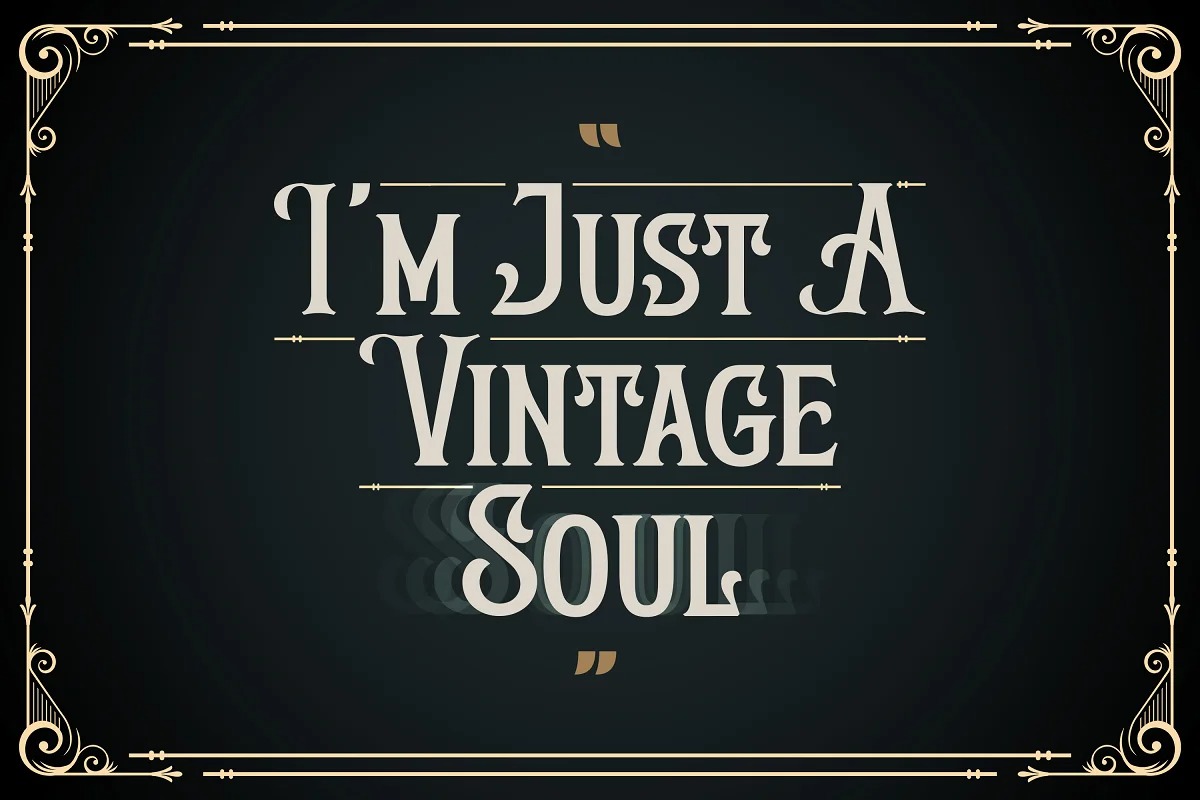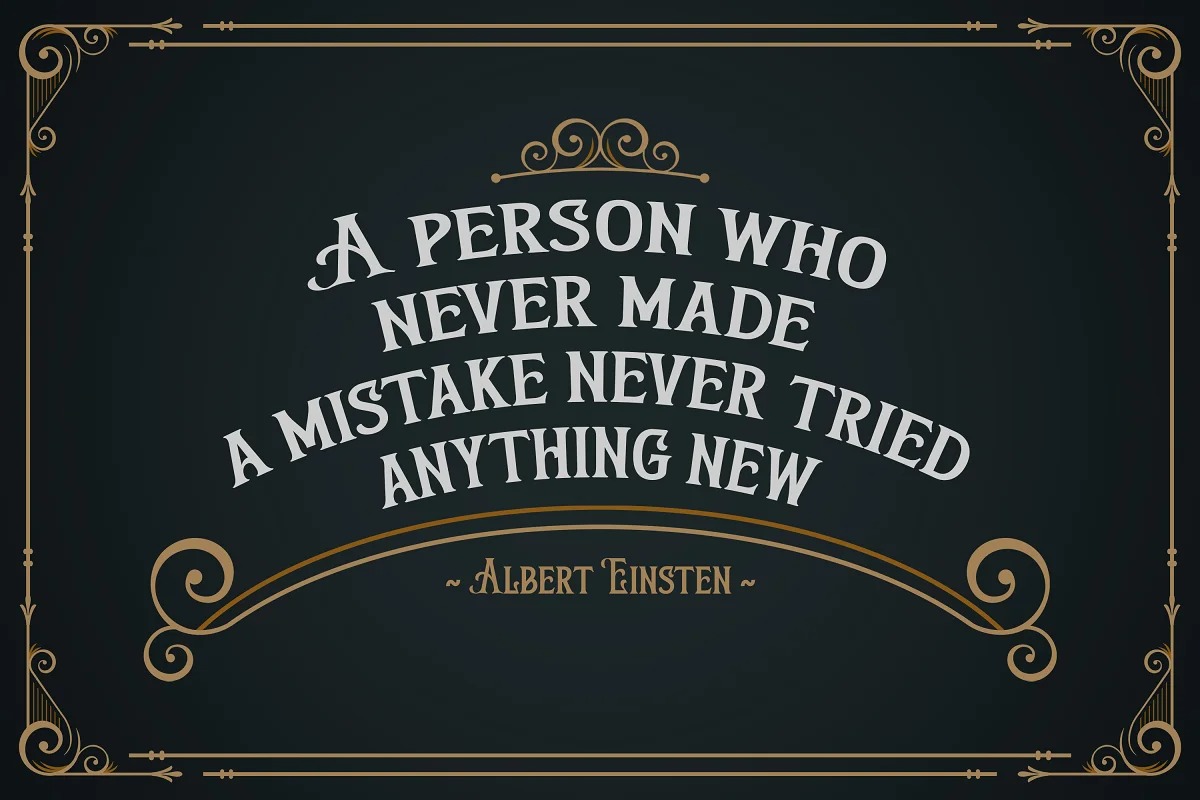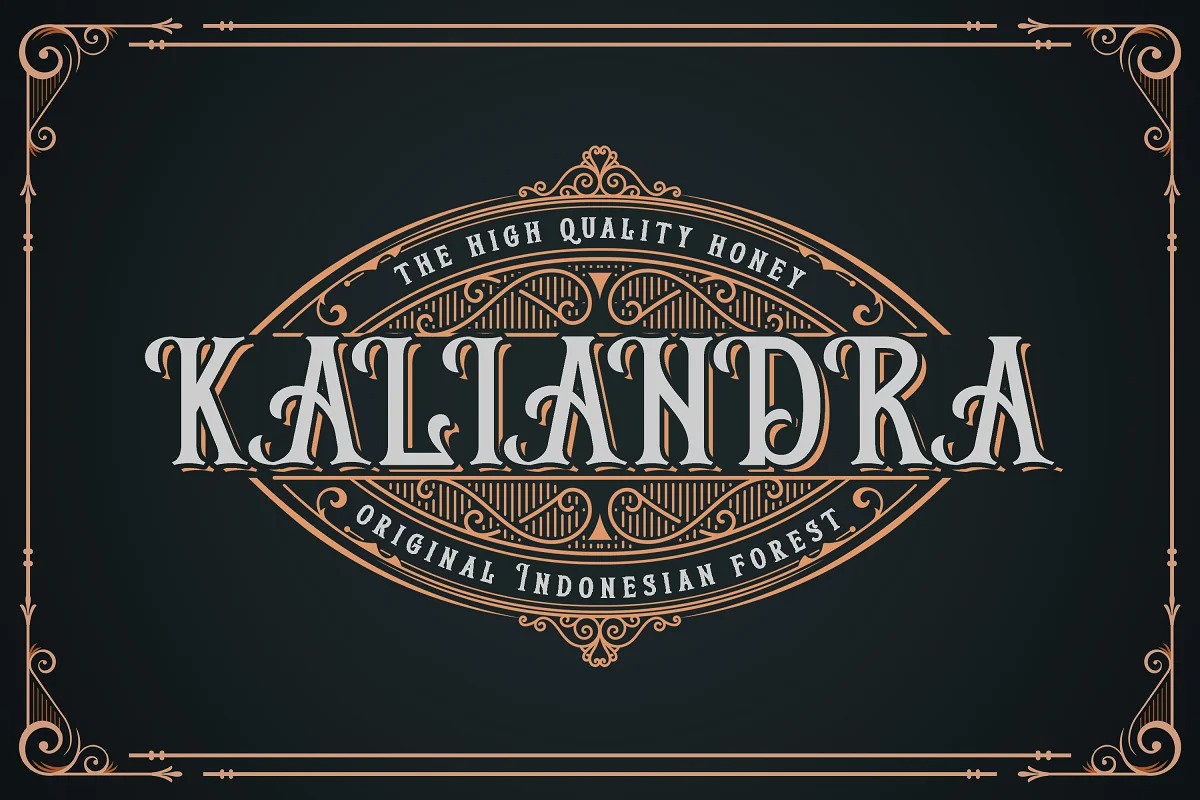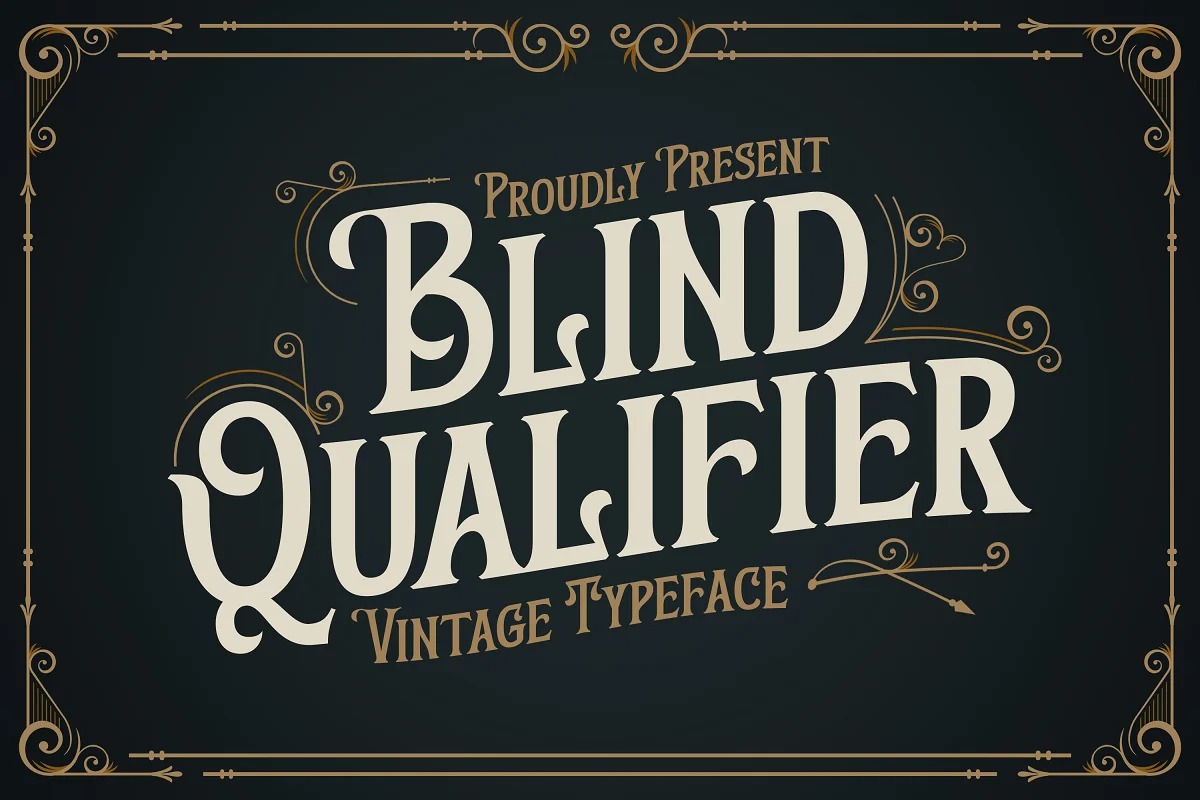
Blind Qualifier Display Font
It’s a stylish display typeface inspired by the letters from the beginning of the 20th-century with a touch of modernity. Best Vintage font with special alternative glyphs, and multilingual support. inspired by the decorative arts and architecture movement
Blind Qualifier fonts is perfect for your project and allows you to create designs, headlines, posters, logos, badges, t-shirts and many more that are beautiful. It is also best used for posts, logos, posters, certificates, labels and more.